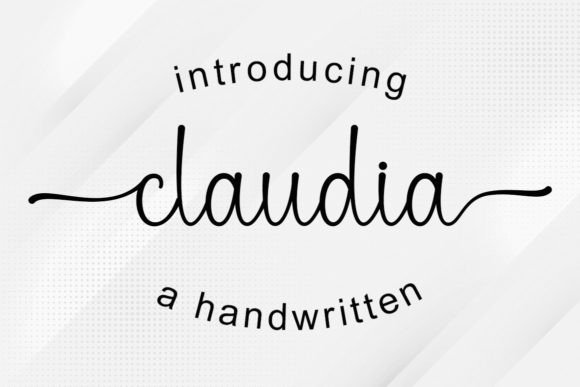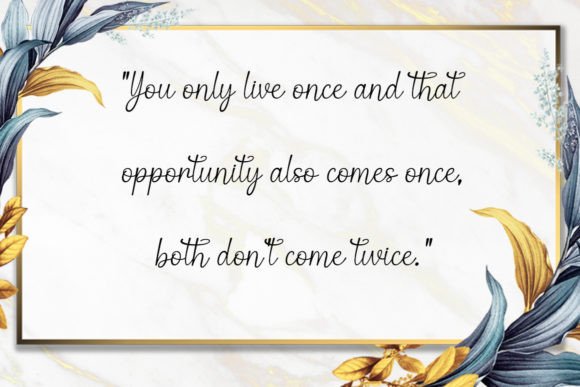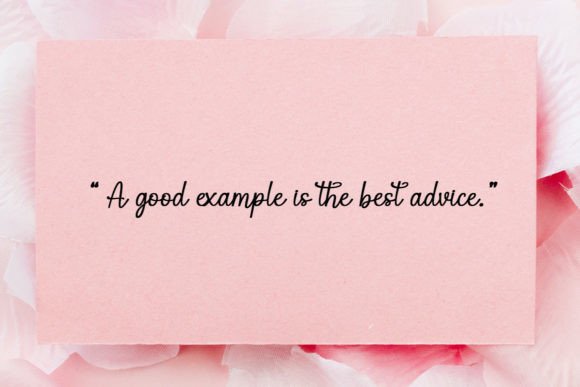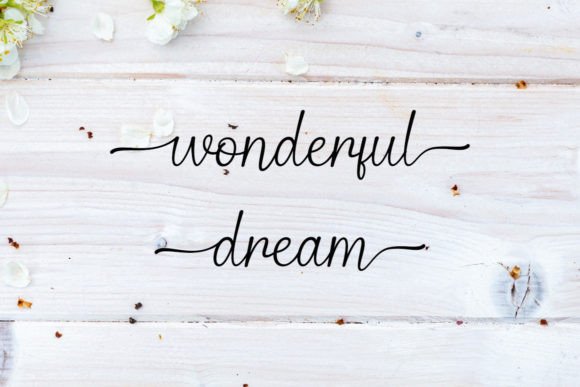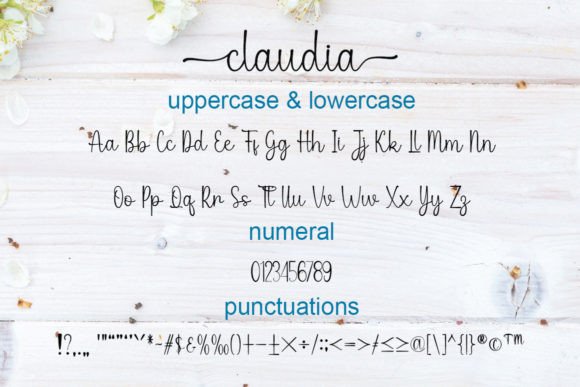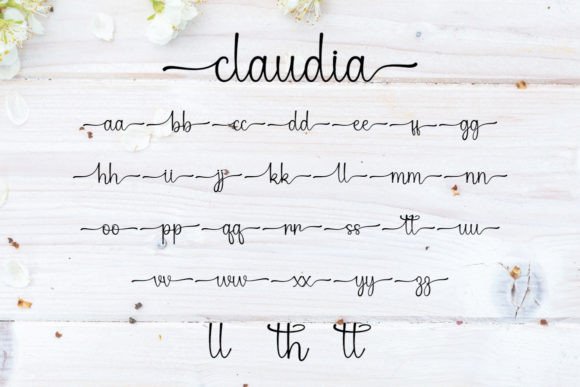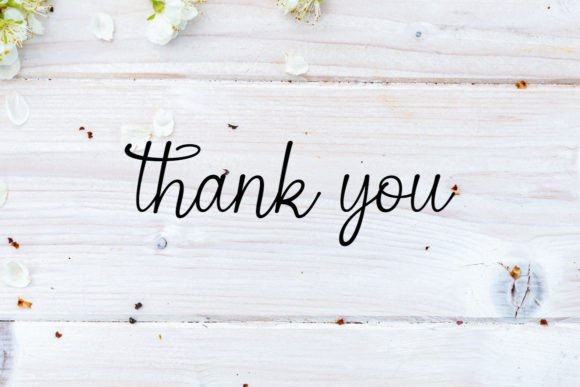
Claudia Font
About Claudia Font
Claudia is an enchanting script font perfect for logos, branding, quotes, clothing, tote bags, business cards, websites, and many more. Fall in love with it, and let it take your projects to the highest level! This font is PUA encoded, which means you can access all the glyphs and ligatures with ease!